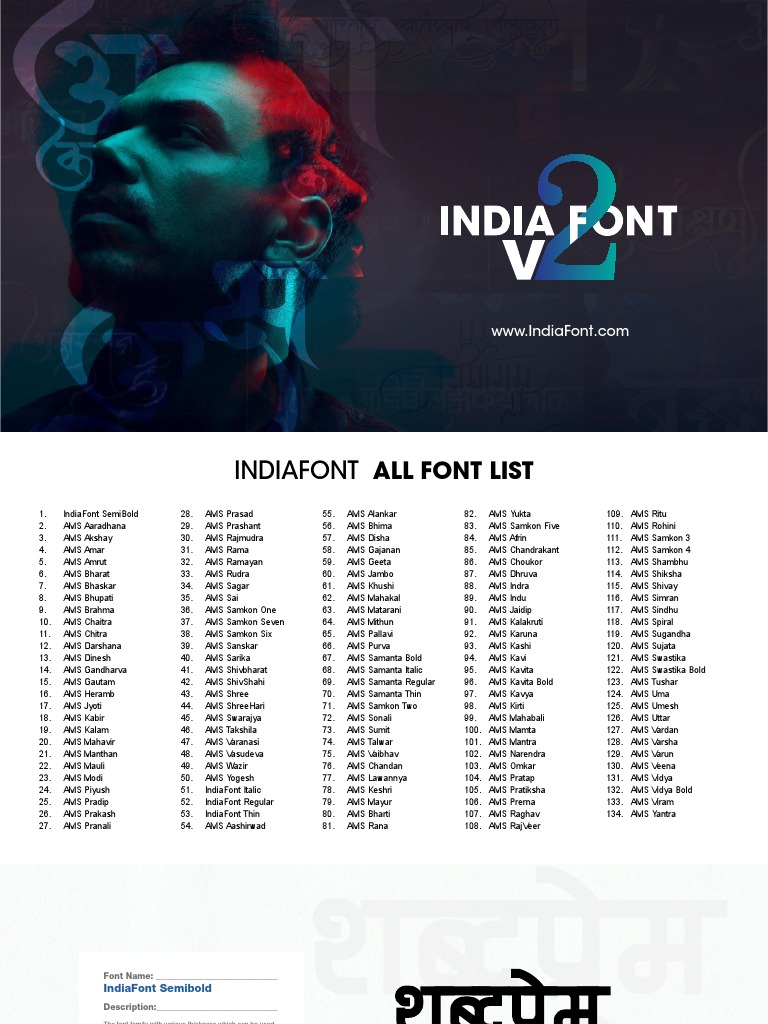
IndiaFont Semibold
The font family with various thickness which can be used
in different type of ads / flex / books / or in any other
paragraph.
So no worries anymore of simple fonts, not only simple but
also creative which will change the look of your designs.
• Logo • Brochure • Business Card • Sign Board
• Greeting Cards • Invitation Card • News Advert
AMS Aaradhna
Just type and change any Variable as needed to get
fantastic results. Another great typeface to get high end
typography experience.
Now only spend the time on design part, typography is
almost ready for you. This font can be used specially for
Heading.
• Logo • Brochure
• Greeting Cards • Invitation Card
AMS Akshay
The font which can be used in different type of ads / flex /
books / or in any other paragraph.
So no worries anymore of simple fonts, not only simple but
also creative which will change the look of your designs.
• Logo • Brochure • Business Card • Sign Board
• Greeting Cards • Invitation Card • News Advert
AMS Amar
This type face is specially designed for quality design
production. When you need something very special to
create for you end client, you can go with font like this
one.
Yes, it has very nice shape and formed to be used with
multiple choice.
• Logo • Brochure • Sign Board
• Greeting Cards • Invitation Card • News Advert
AMS Amrut
To use at very unique designs to give it a very high end
look with typography. Font structure shows itself a lot
about it, now its on upto you how you molt it in your
designs.
• Logo • Brochure • News Advert
multiple choice.
• Logo • Greeting Cards • Invitation Card
AMS Shivay
This type face is specially designed for quality design
production. When you need something very special to
create for you end client, you can go with font like this
one.
Yes, it has very nice shape and formed to be used with
multiple choice.